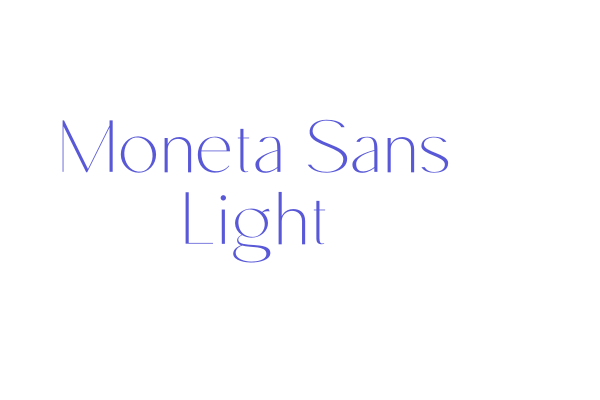
Moneta Sans Light is a sleek and modern sans-serif font designed by Santi Rey. Part of the Moneta Sans font family, this light style offers a clean and minimalist look perfect for a wide range of design projects. Ideal for creating a contemporary and sophisticated feel, Moneta Sans Light is a versatile choice for branding, editorial design, and web graphics.
Font Name: Moneta Sans Light
Designer: Santi Rey
Font Family: Moneta Sans
Weight: Light